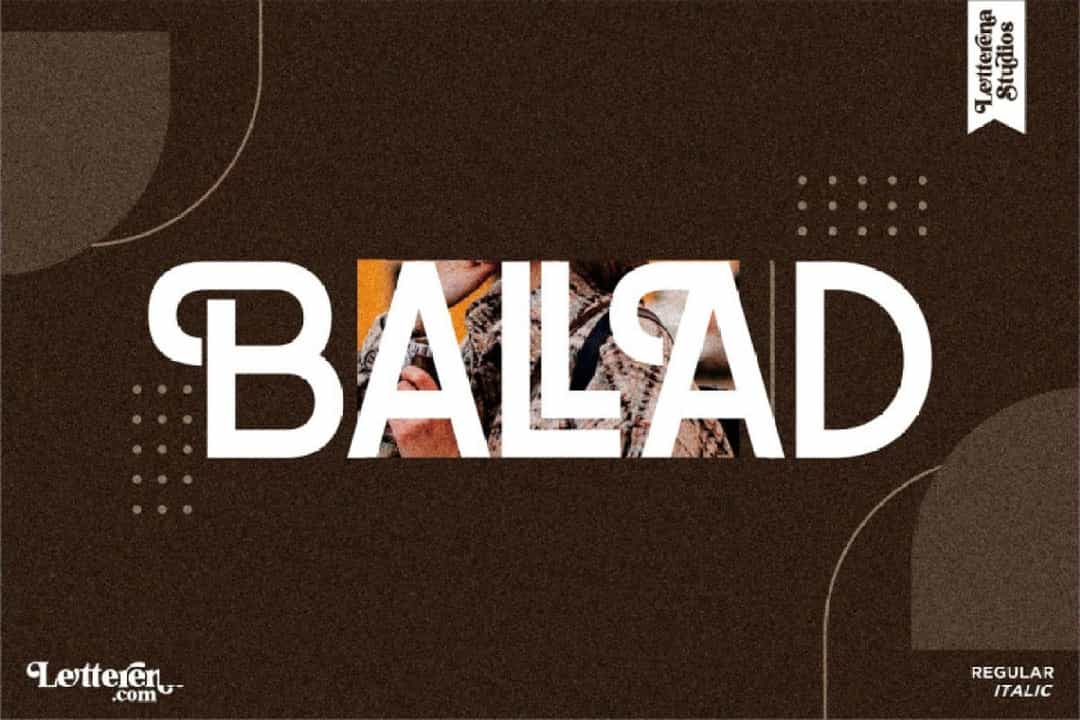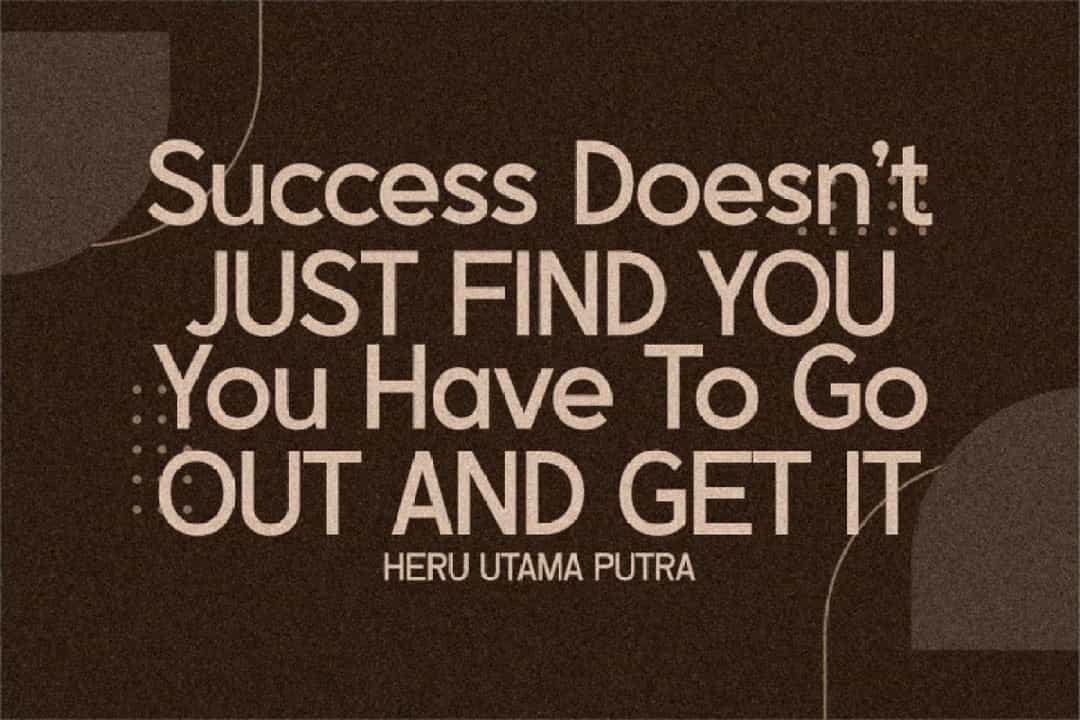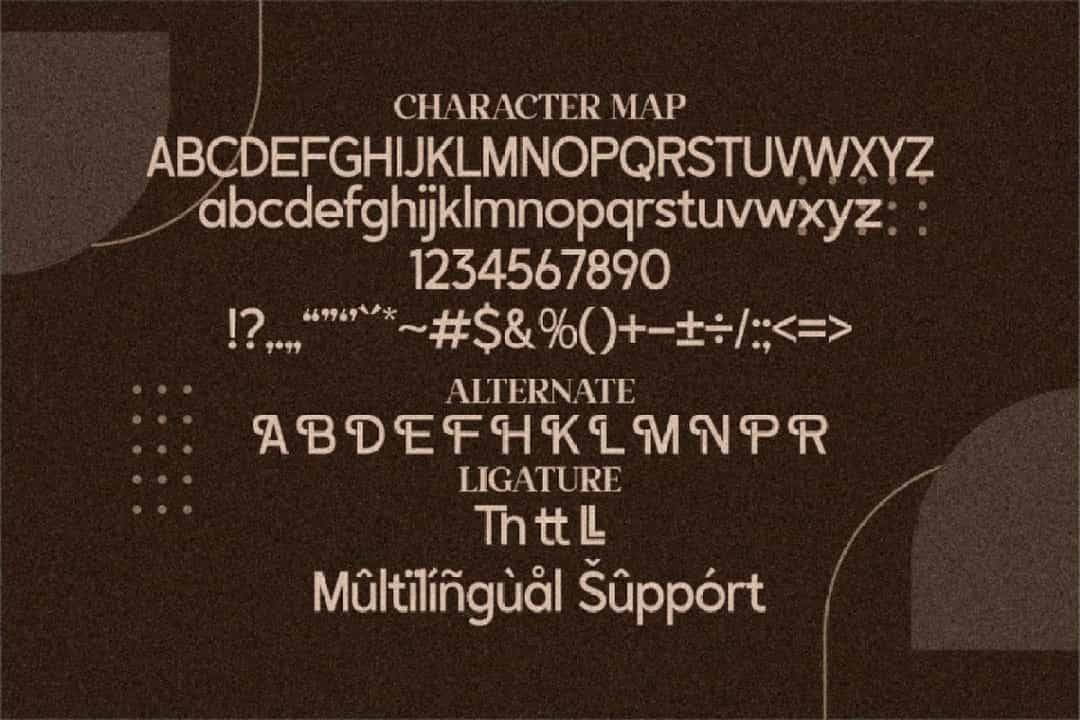
Ballad is an elegant classic sans-serif font. Perfect for any topic or subject matter, this font can add value to your collection by complementing and complementing all types of typefaces.